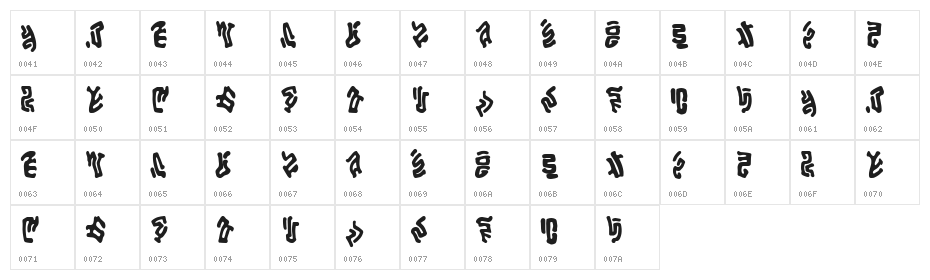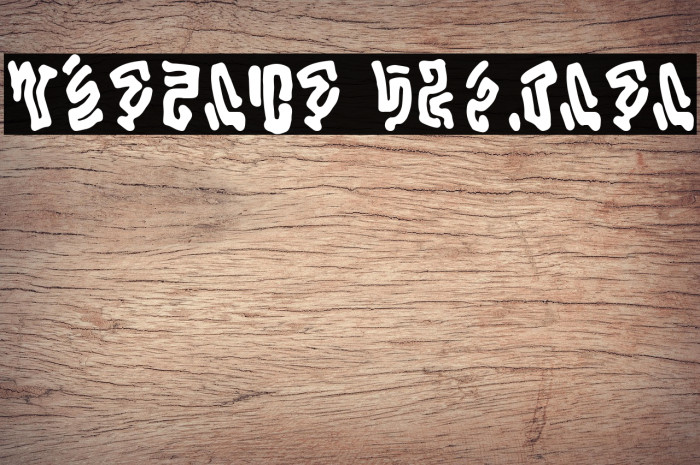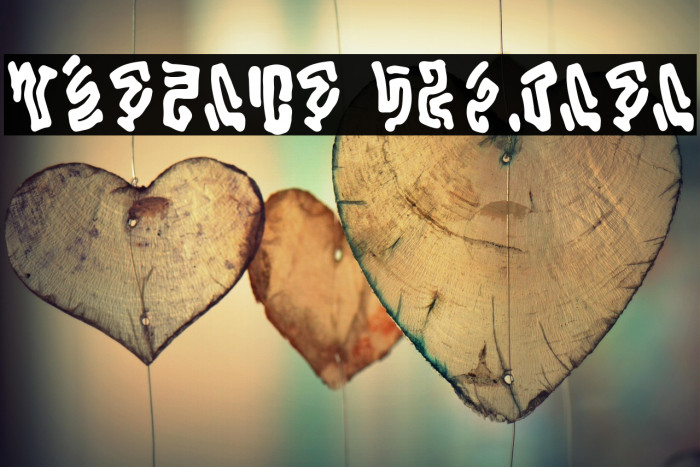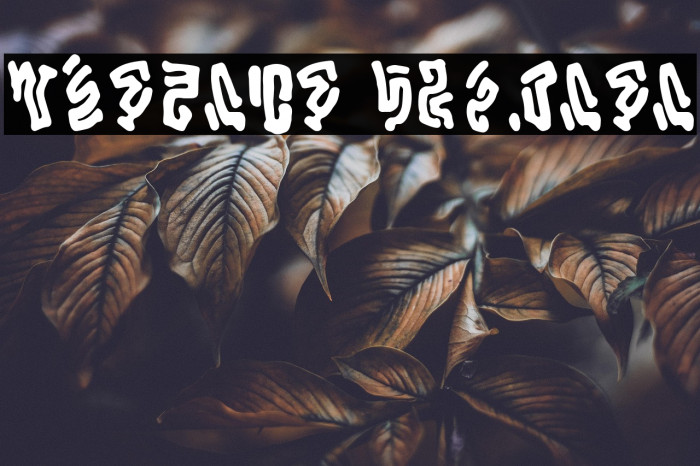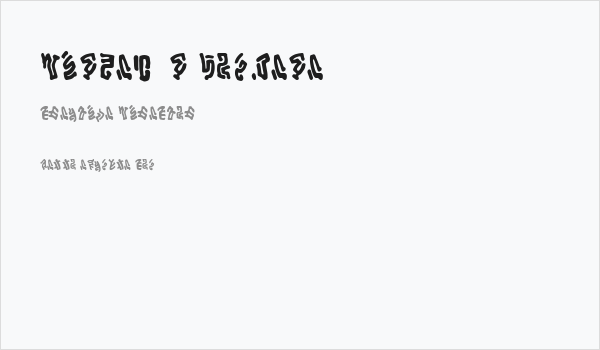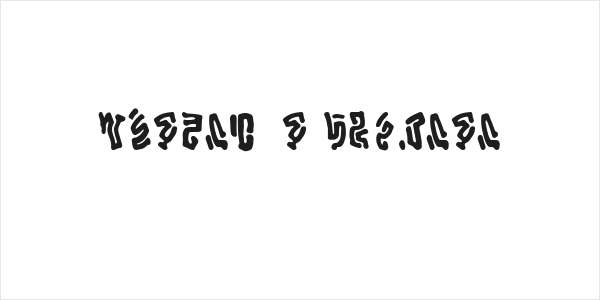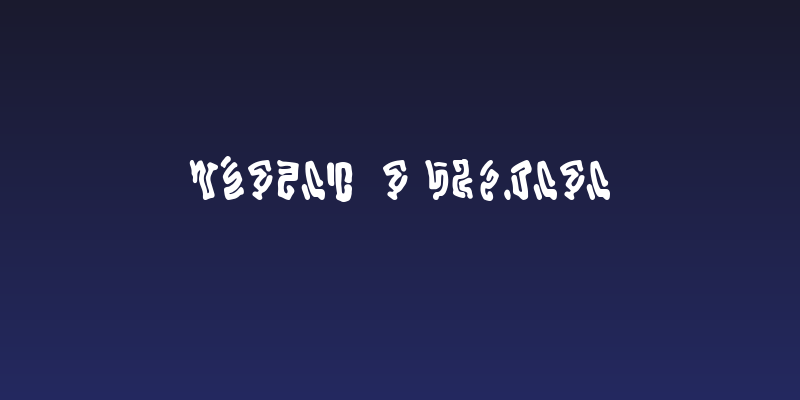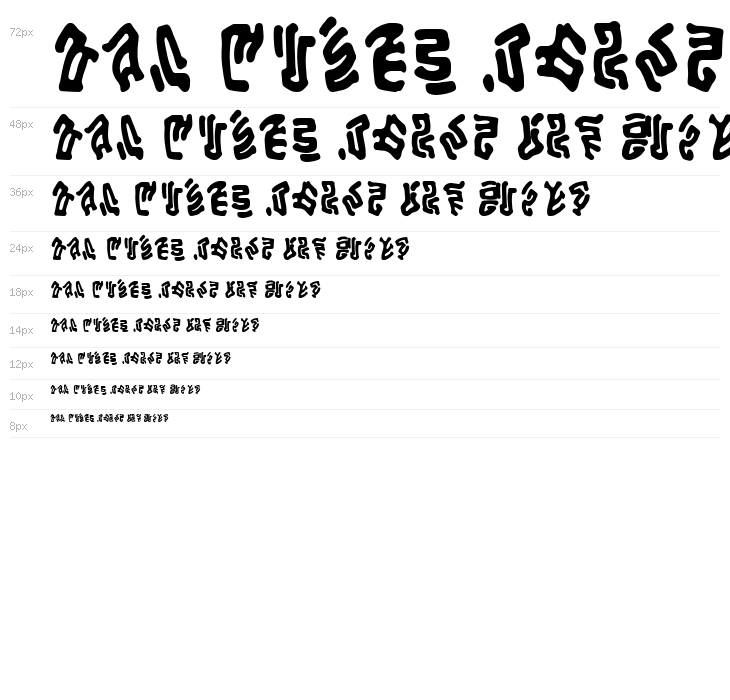
Disney's Zombese Font
Disney's Zombese Description
This font features a highly stylized and decorative design, reminiscent of abstract or alien-like symbols. The characters are bold and have a playful, cartoonish quality, with exaggerated curves and angles. Each letterform is unique, contributing to a sense of mystery and fantasy. The overall appearance is dynamic and visually striking, making it suitable for creative and themed projects. The font's distinctiveness lies in its ability to convey a sense of otherworldliness and fun, making it ideal for projects that aim to capture attention and evoke imagination.
| Use Case | Logos, Posters, Themed Events |
| Proposed Projects | Ideal for themed events, fantasy games, movie posters, or any project requiring a unique and eye-catching typeface. |